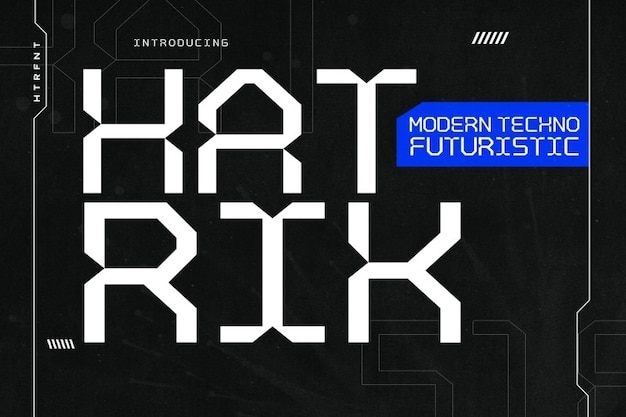
Hatrik Font
Drizy Studio
Hatrik font embodies a modern, futuristic aesthetic with its sleek geometrical lines and techno-inspired design. Evoking a sense of innovation, it's perfect for projects seeking a bold, forward-thinking vibe. With Hatrik, typography becomes a conduit for futuristic expression, setting the stage for cutting-edge design endeavors.